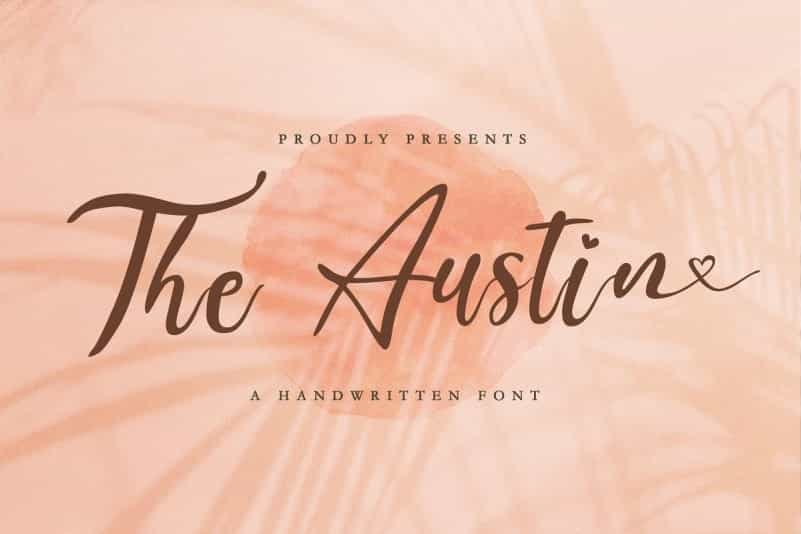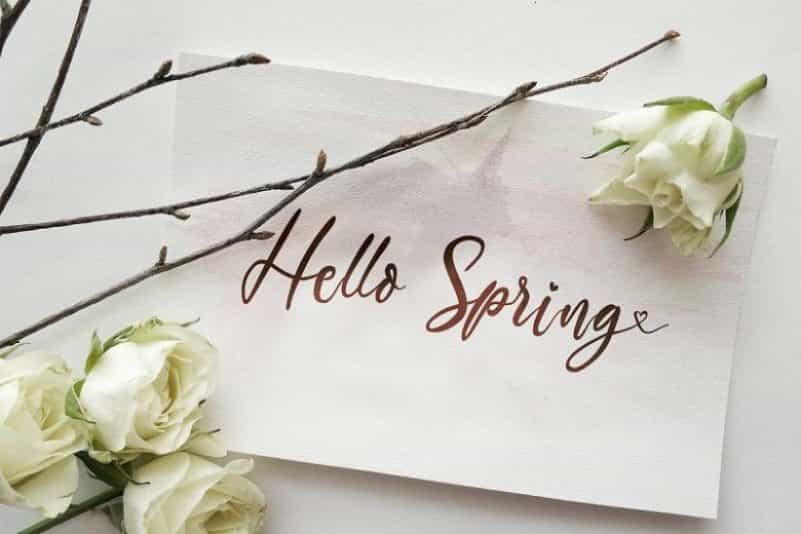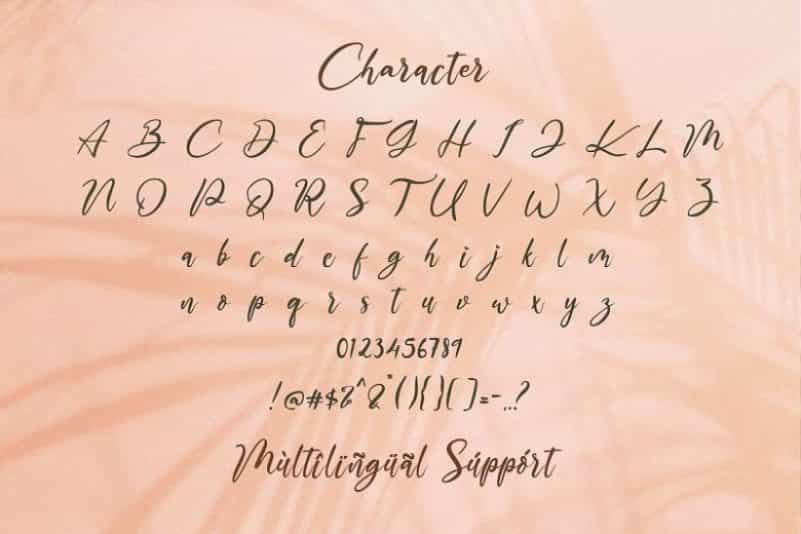
The Austin font has script style with the parts that look like they are made with a real brush pen for the natural look. Suitable for clothing boutiques, save the date, business cards, corporate identity, lettering and many other calligraphy designs.